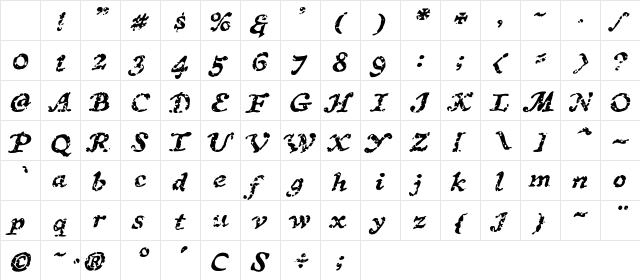
CCTreasureTroveDecayed wears its vintage influences proudly, with letterforms that recall mid-century signage, classic packaging, and nostalgia-driven design. The slanted form adds forward momentum and visual energy.
Font Pairing: Combine CCTreasureTroveDecayed with a simple slab or neutral sans - period-accurate companions reinforce the vintage feel without competing for attention.
Pro Tip: Lean into CCTreasureTroveDecayed's period character by pairing it with aged paper textures, muted colour palettes, and vintage illustration styles.